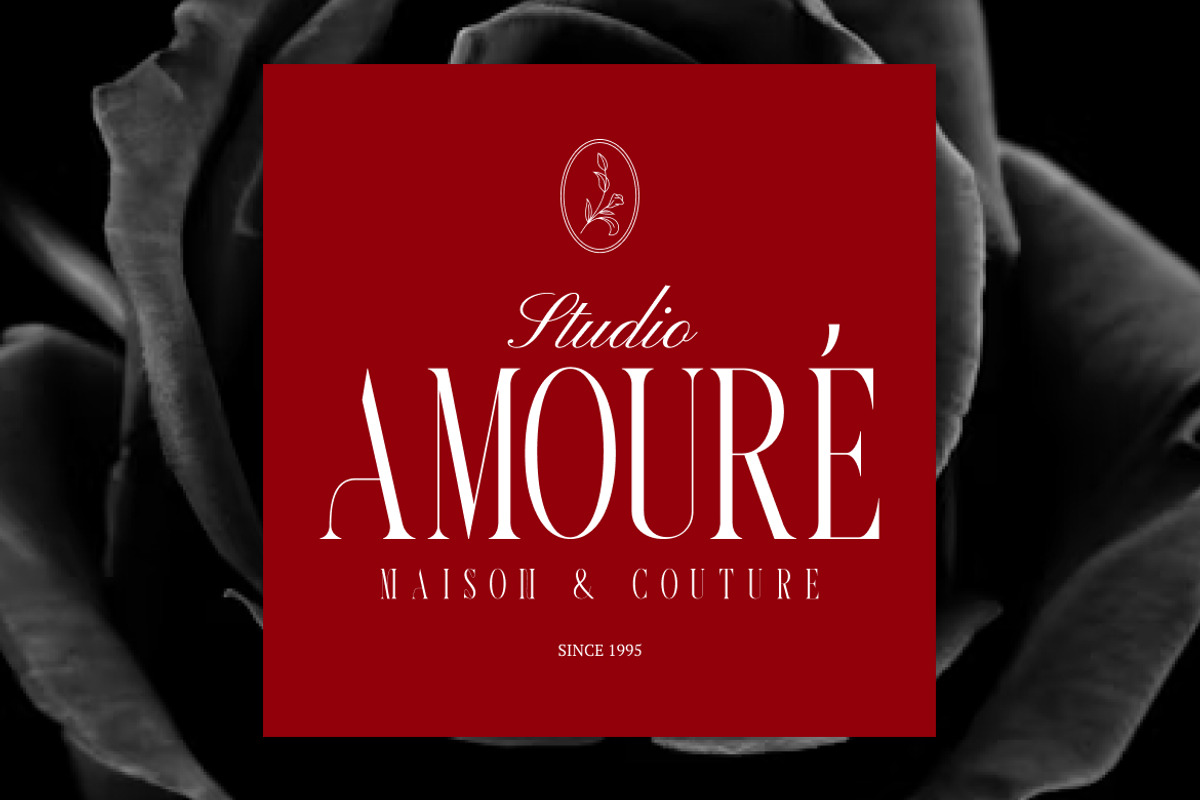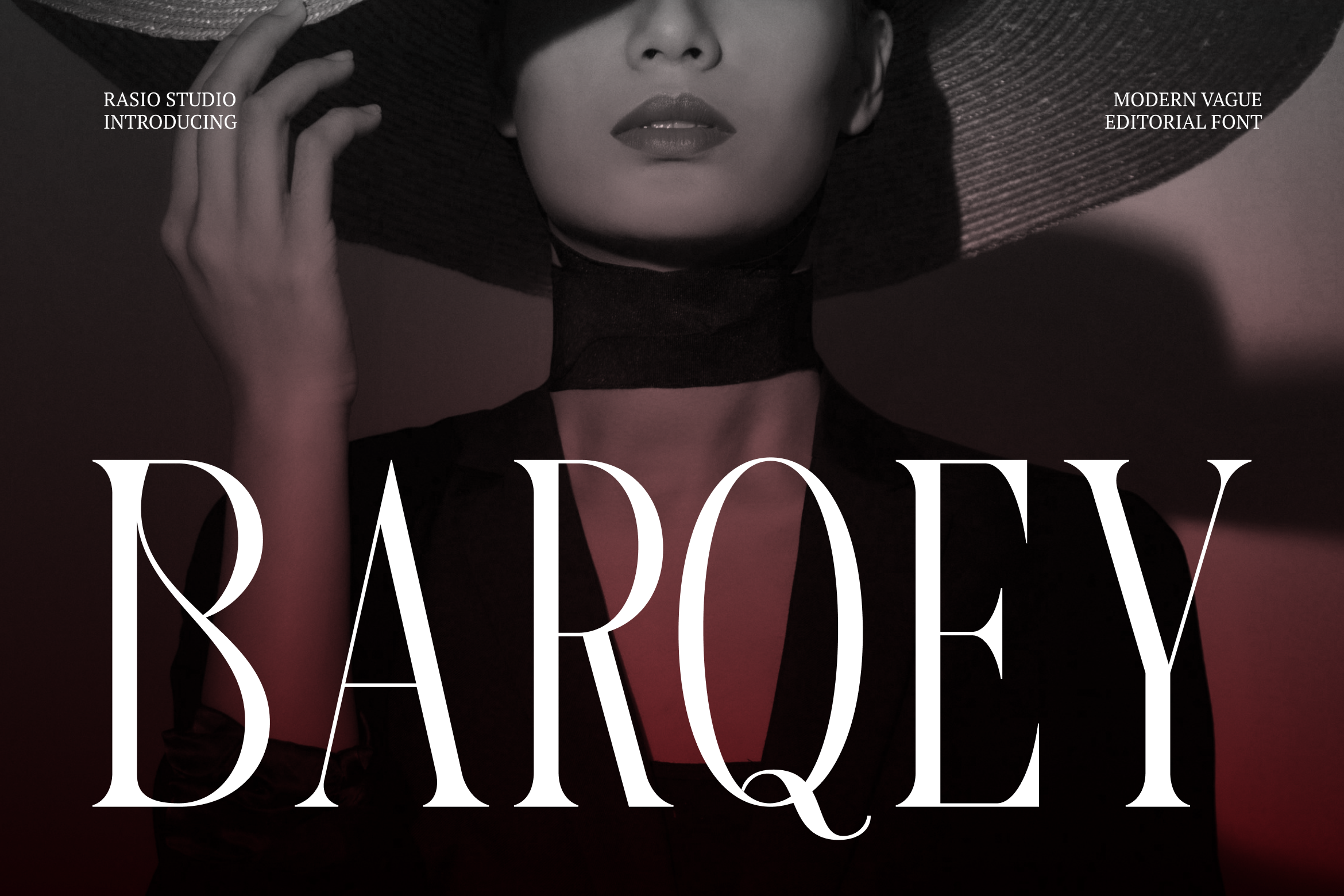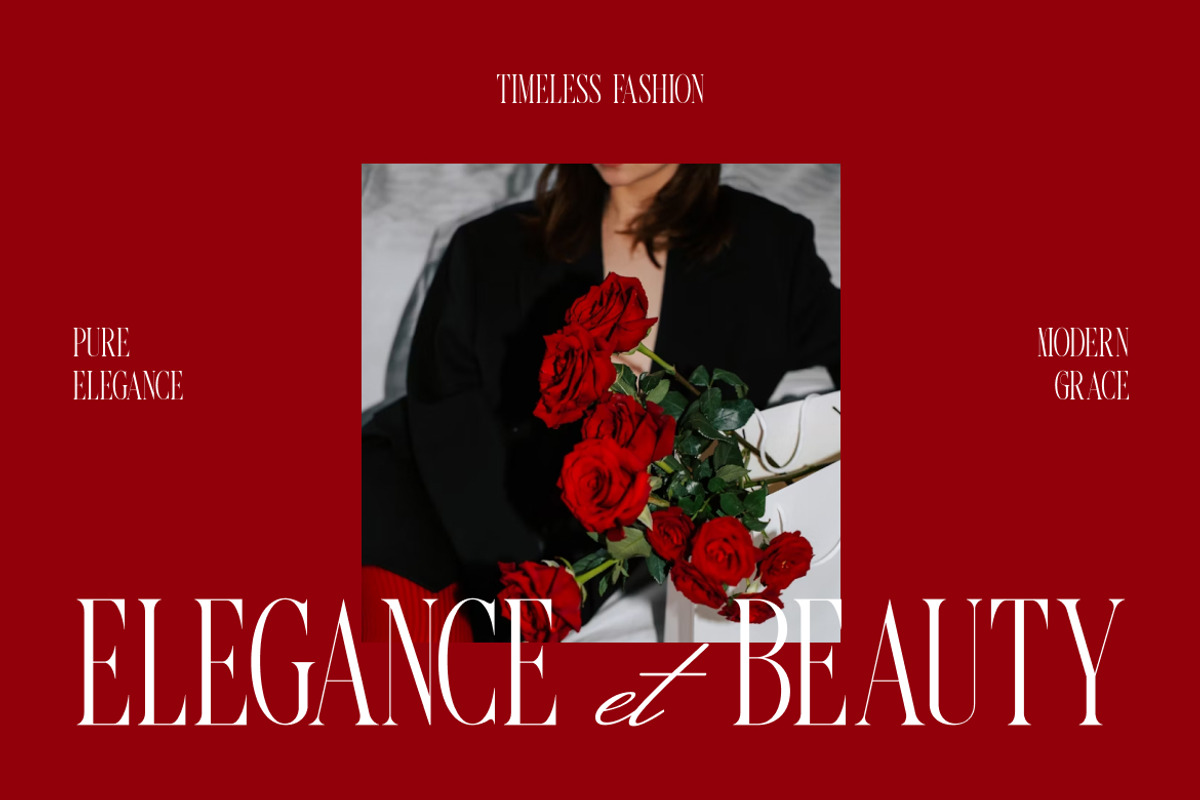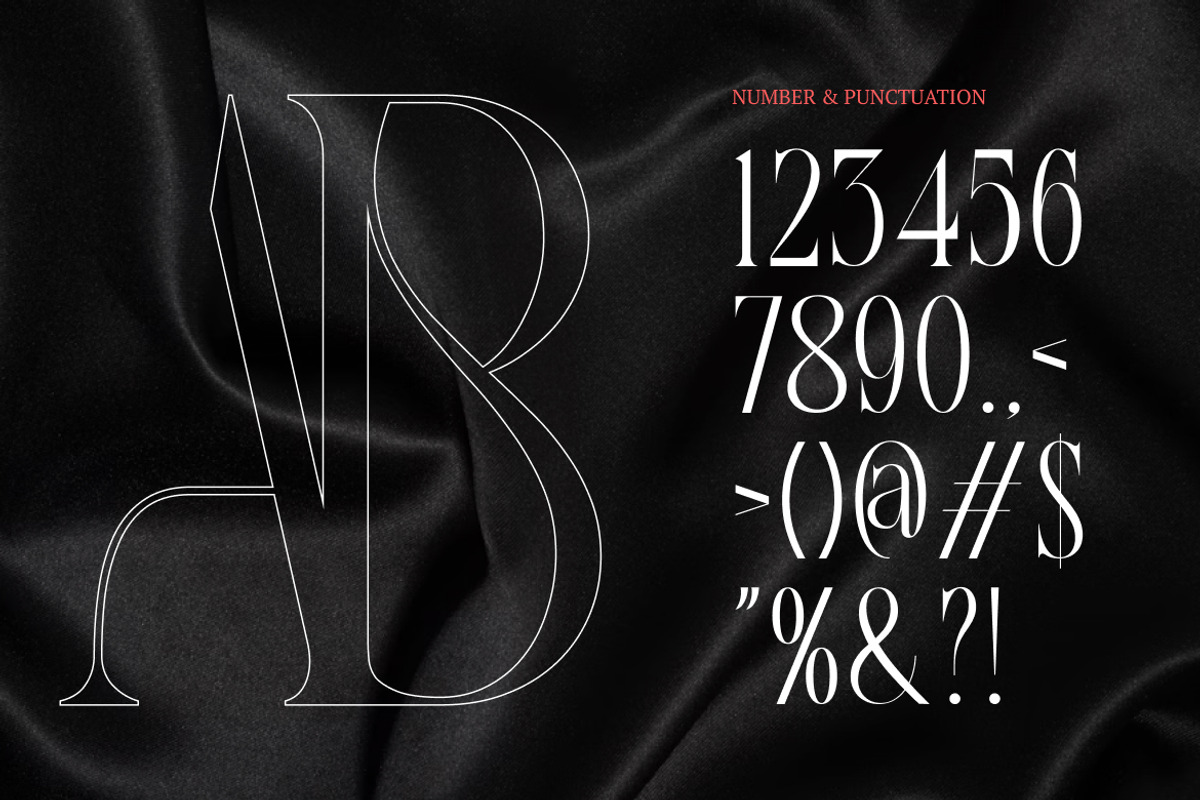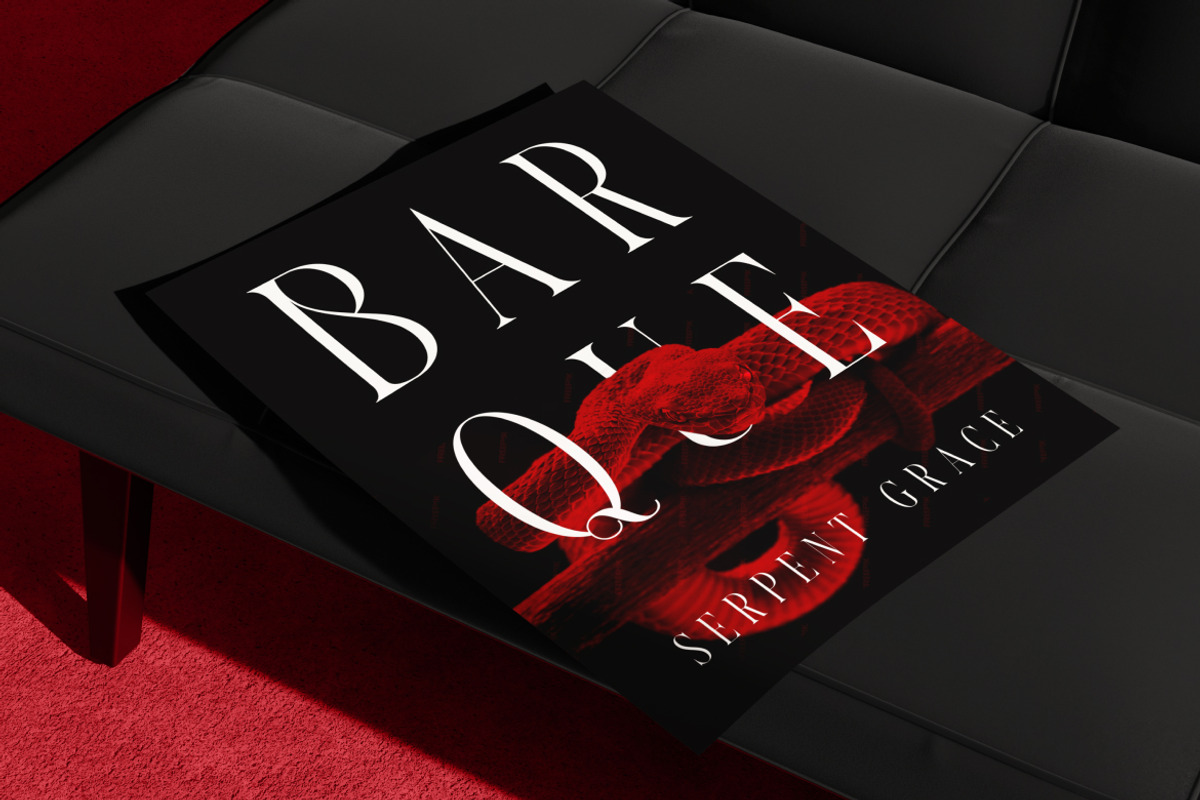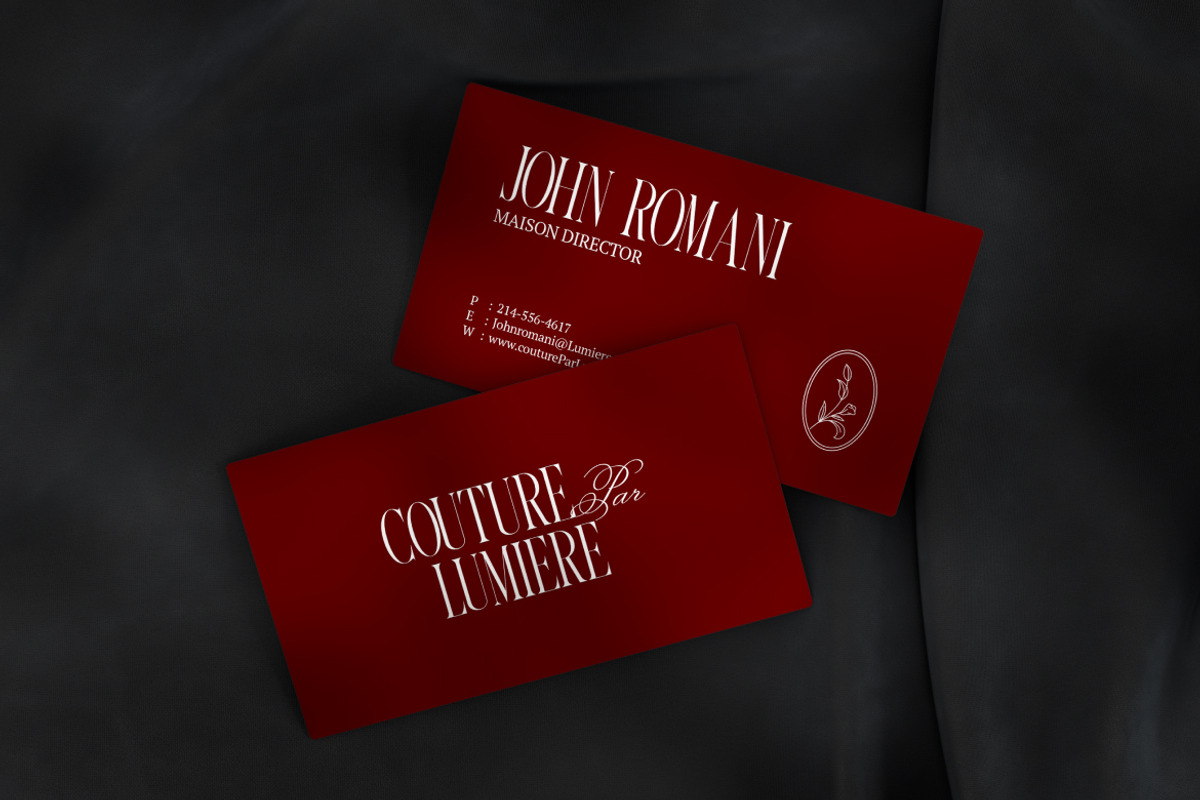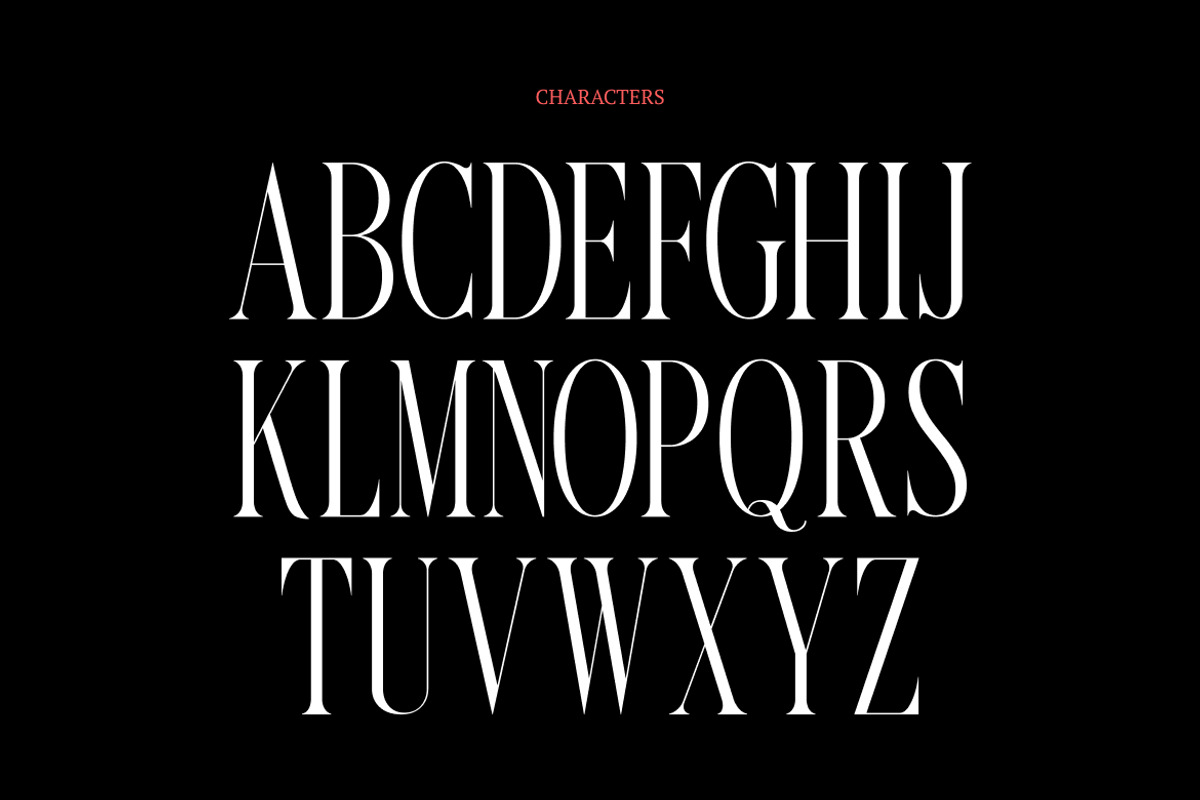
Barqey Modern Vague Editorial Font
Barqey is a modern editorial serif typeface defined by high-contrast strokes, refined curves, and elegant proportions that create a sophisticated fashion-forward presence. The letterforms combine sharp serifs with smooth transitions and delicate hairlines, delivering a graceful rhythm suited for premium layouts.
Relevance and Use Cases is perfect for fashion editorials, luxury branding, beauty packaging, magazine covers, perfume labels, wedding stationery, upscale logos, social media campaigns, lookbooks, and premium print or digital layouts that require an elegant and sophisticated tone.
- High-contrast serif construction with refined thick–thin strokes
- Slim hairlines and sharp serifs that create a graceful, luxurious character
- Sculpted curves and tall proportions for a sophisticated, fashion-forward presence
- Clean vertical stress with precise line weight for crisp, premium readability
- Carefully balanced spacing and kerning for polished headlines and stylish layouts
- Luxury brand identity systems seeking refined
- Fashion editorials, magazine covers, and high-end lookbooks
- Beauty, perfume, and cosmetic packaging design
- Wedding invitations and upscale event stationery
- Social media campaigns and branding materials